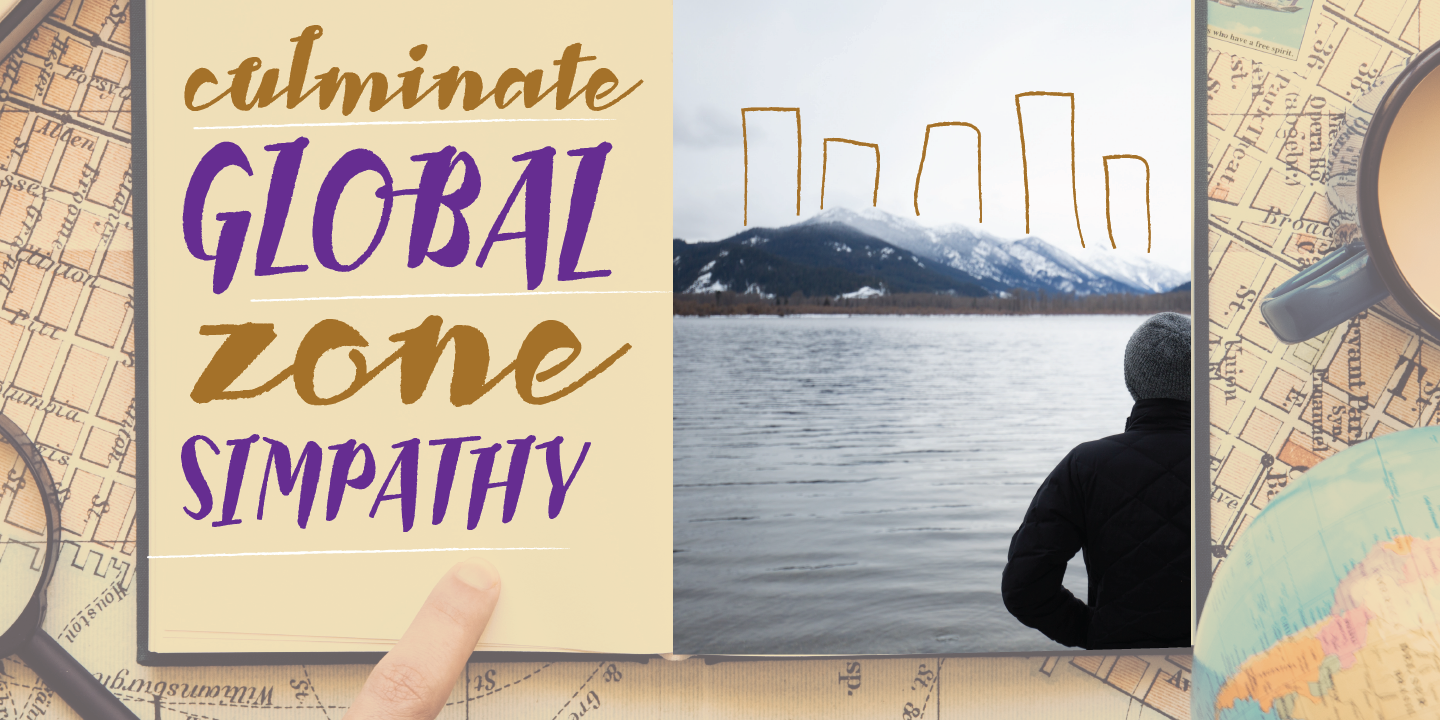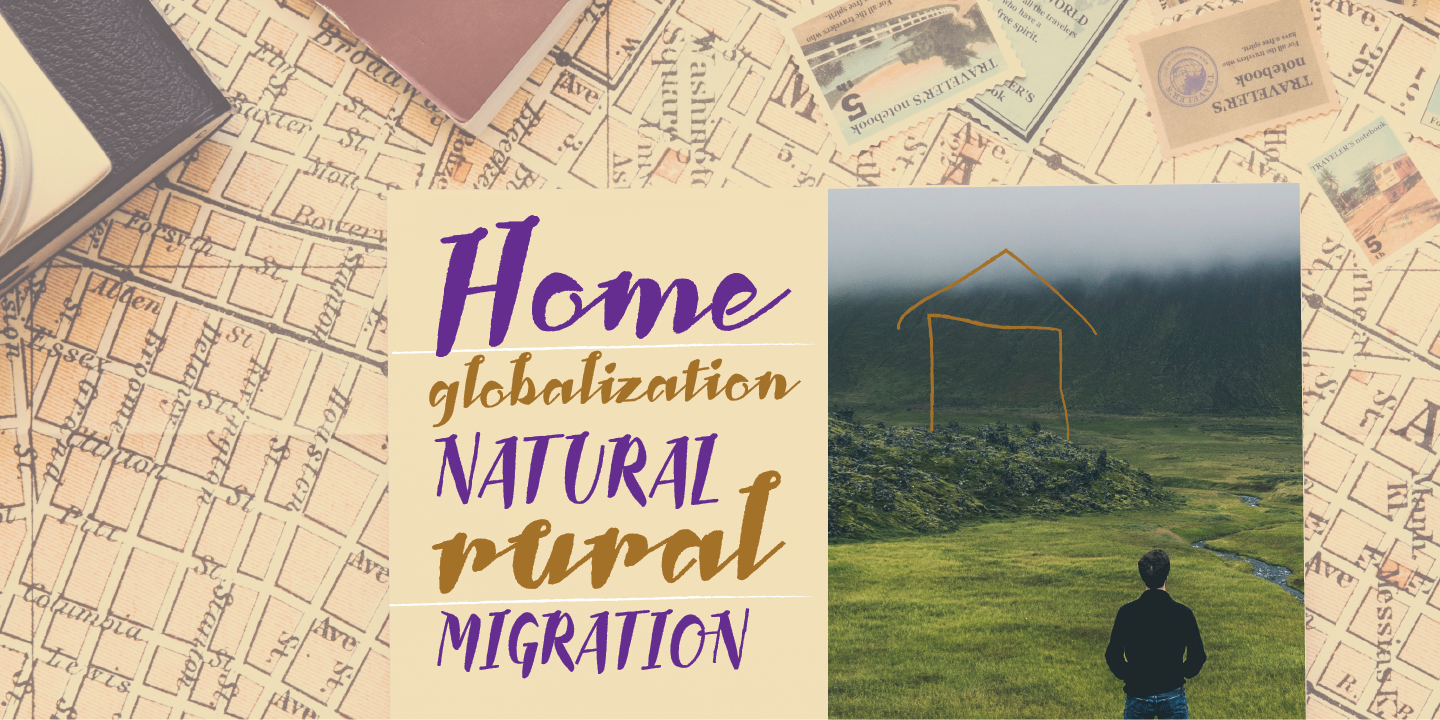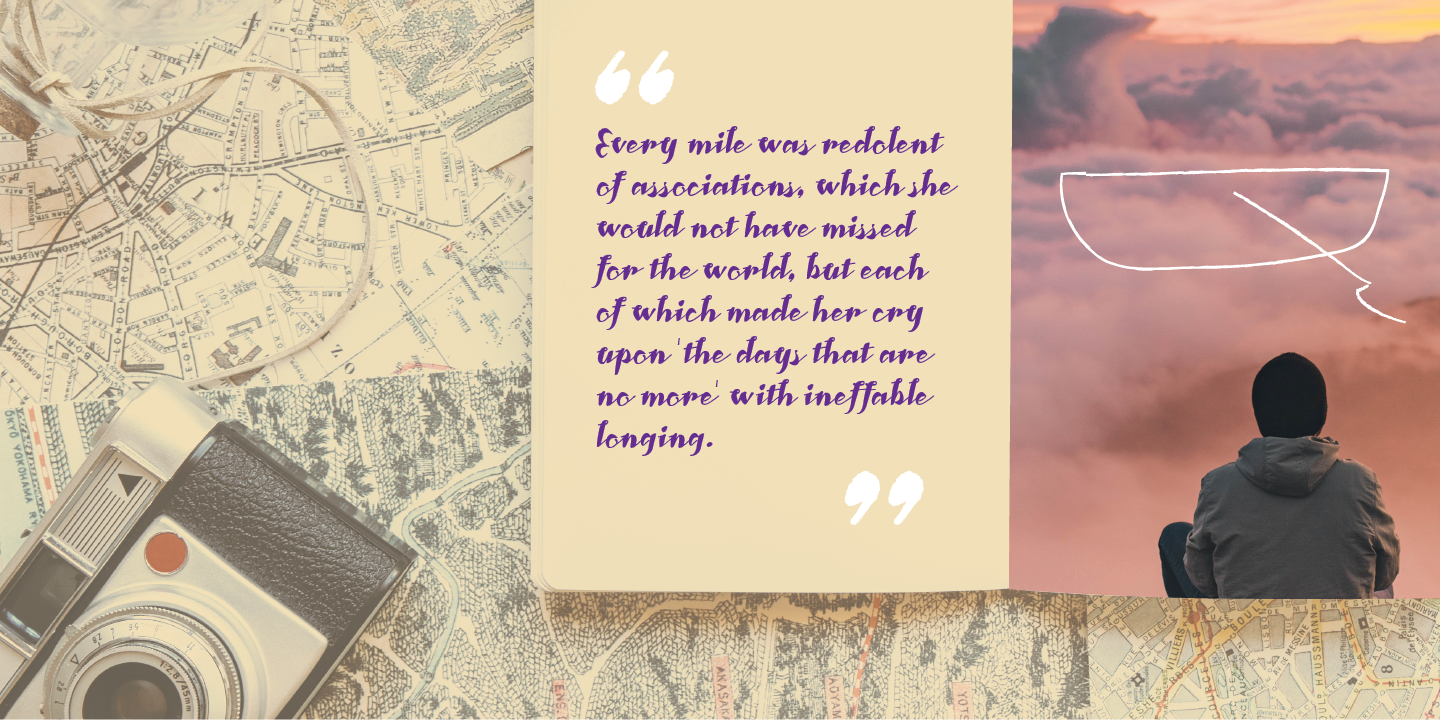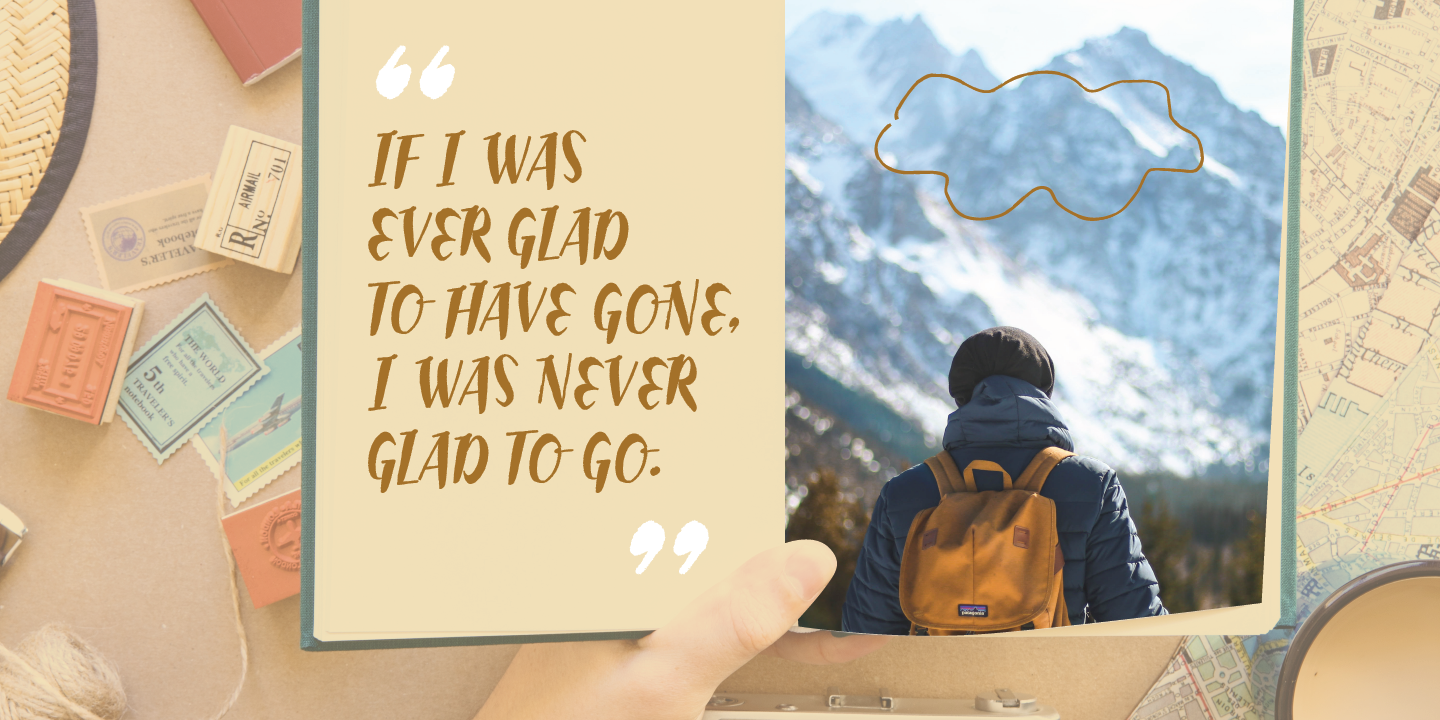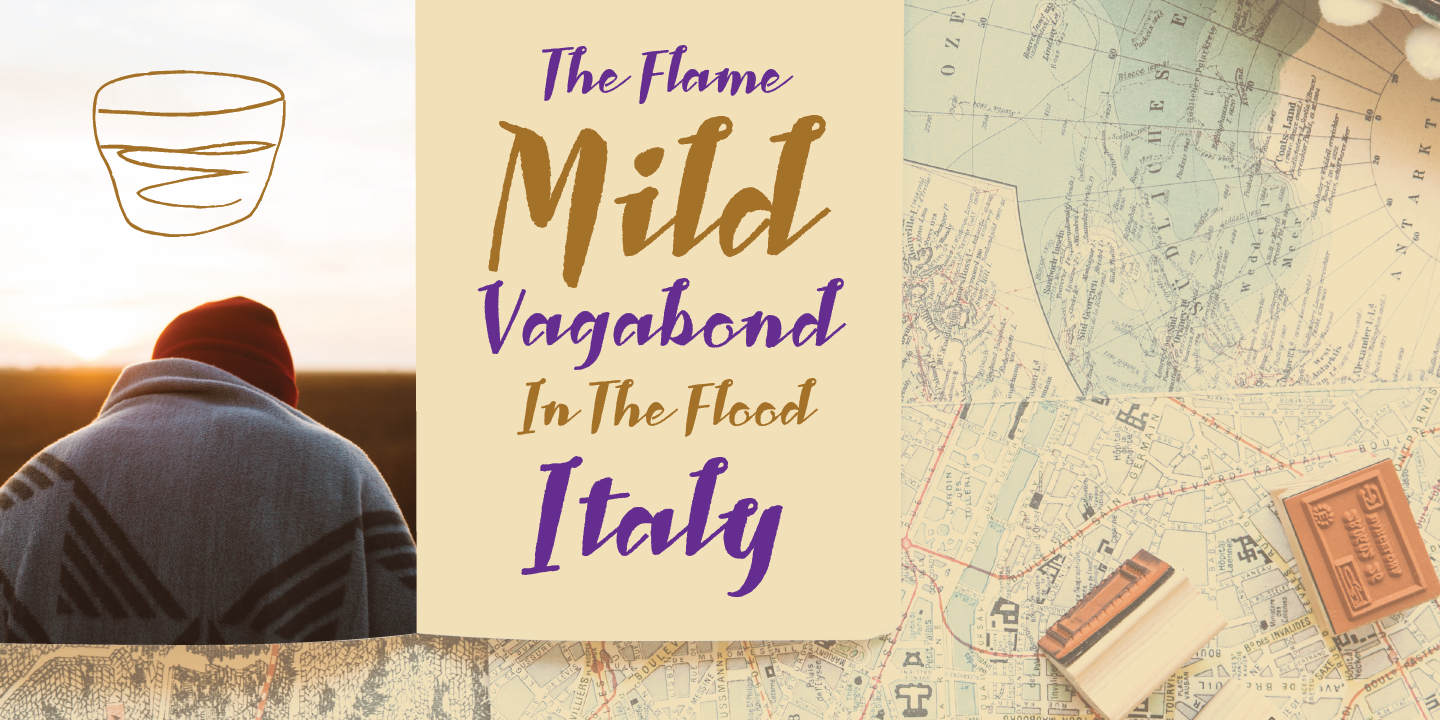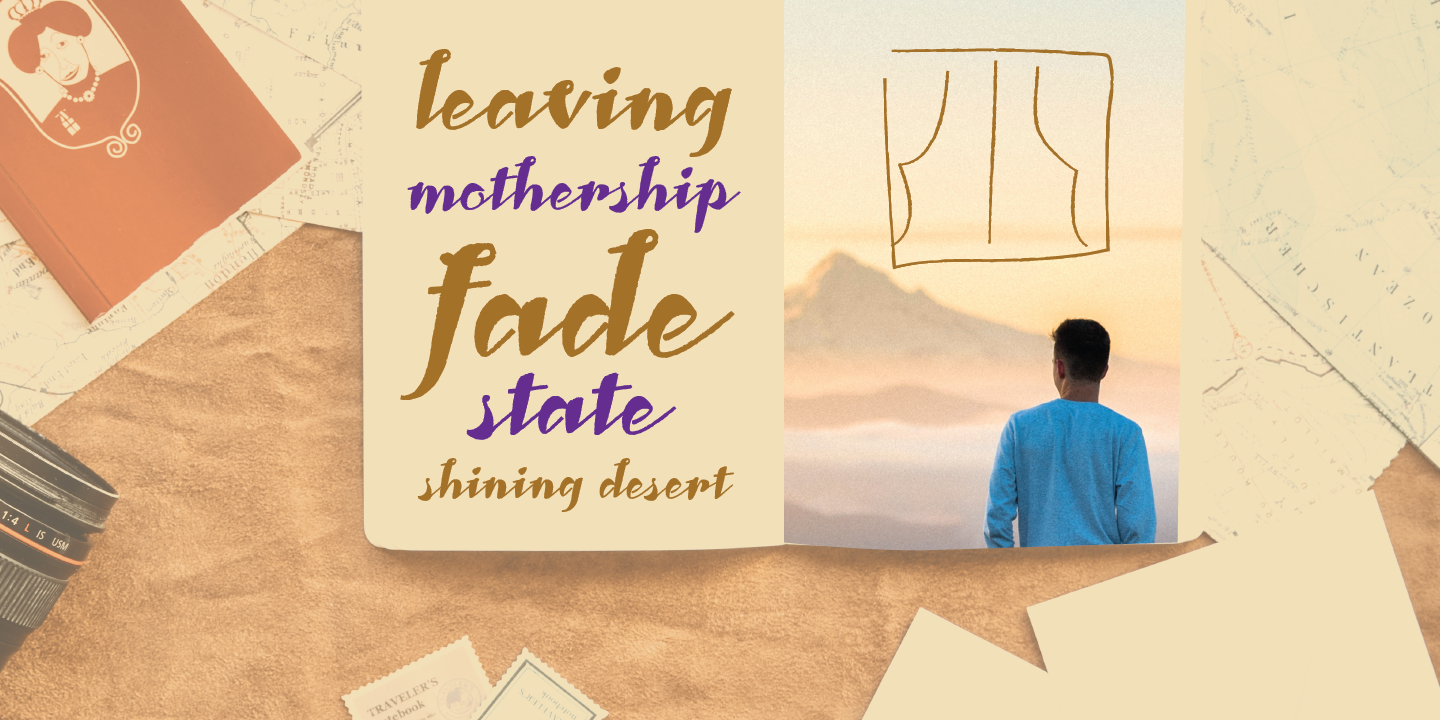
Introduction to Landsick Font
Do you remember that moment when a design sparks joy and sets the tone for your entire creative project? For many designers, that spark often comes from discovering the perfect font. And, we’re excited to share with you a game-changing addition to your design resource arsenal – the charming Landsick Font. This single weight script family is not just another font; it’s a breath of fresh air, a dash of personality, and a pinch of whimsy that can elevate any design.
With its transparent background and high-quality design, Landsick Font is ready to bring your creative vision to life. Whether you’re working on a personal project or a client-based design, this free download is a valuable addition to your toolkit. Its lively and playful nature makes it perfect for a wide range of applications, from branding and marketing materials to editorial and social media content.
Key Features of Landsick Font
- High-quality design resource with a unique, hand-drawn aesthetic
- Unique characteristics and subtle texture add a touch of personality to any design
Honest Review: Landsick Font
I recently came across the Landsick Font while searching for a free design resource to enhance my creative project. At first glance, I was impressed by its unique and quirky design, which immediately caught my attention.
What works well: ✨ The Landsick Font has a high-quality design that can easily be used in various creative projects. Its transparent background makes it versatile and easy to customize. The font is also free to download, making it a great resource for designers on a budget.
- Unique and quirky design
However, I do have to mention some limitations: ⚠️ The font may not be suitable for all types of projects, particularly those that require a more formal or traditional look. Additionally, the font’s unique design may not be to everyone’s taste.
Overall impression: The Landsick Font is a great addition to any designer’s toolkit. While it may have some limitations, its unique design and high-quality make it a valuable resource for creative projects. I would definitely recommend it to designers looking for a fresh and quirky font.
Landsick Font is a versatile, high-quality design resource that offers a unique aesthetic for your creative project. This font is perfect for designers who want to add a touch of elegance and sophistication to their work.
Landsick Font is perfect for a variety of creative projects, including:
- Typography
- Branding